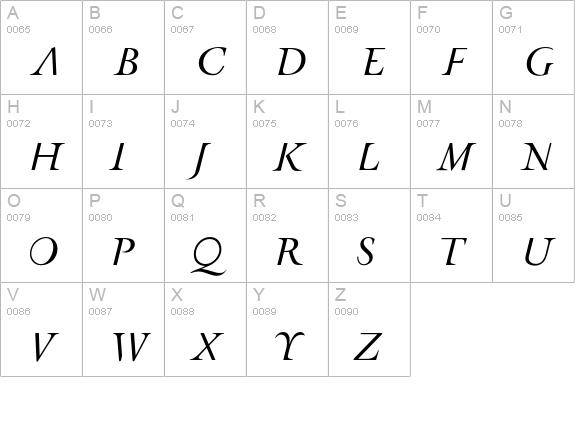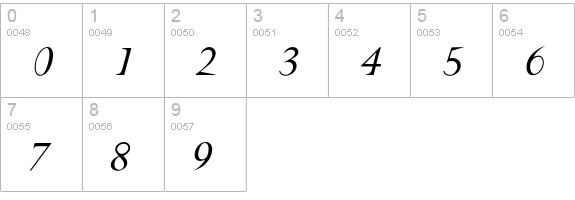
AFRetrospecta-Italic Font Details
AFRetrospecta-Italic is a distinctive, italic variant in the AFRetrospecta typeface family \xE2\x80\x94 well suited to design and typography projects.
AFRetrospecta-Italic is a sleek and stylish font that exudes elegance and sophistication. Its italicized design adds a touch of flair and modernity to any project or design. This font is perfect for creating eye-catching headings, titles, and other text elements that demand attention. What makes AFRetrospecta-Italic even more appealing is that it is available for free download at FontsMarket.com. You can easily access this beautiful font and enhance your projects without any cost. With its unique style and versatility, AFRetrospecta-Italic is sure to become a favorite choice for designers and creatives looking to make a statement.